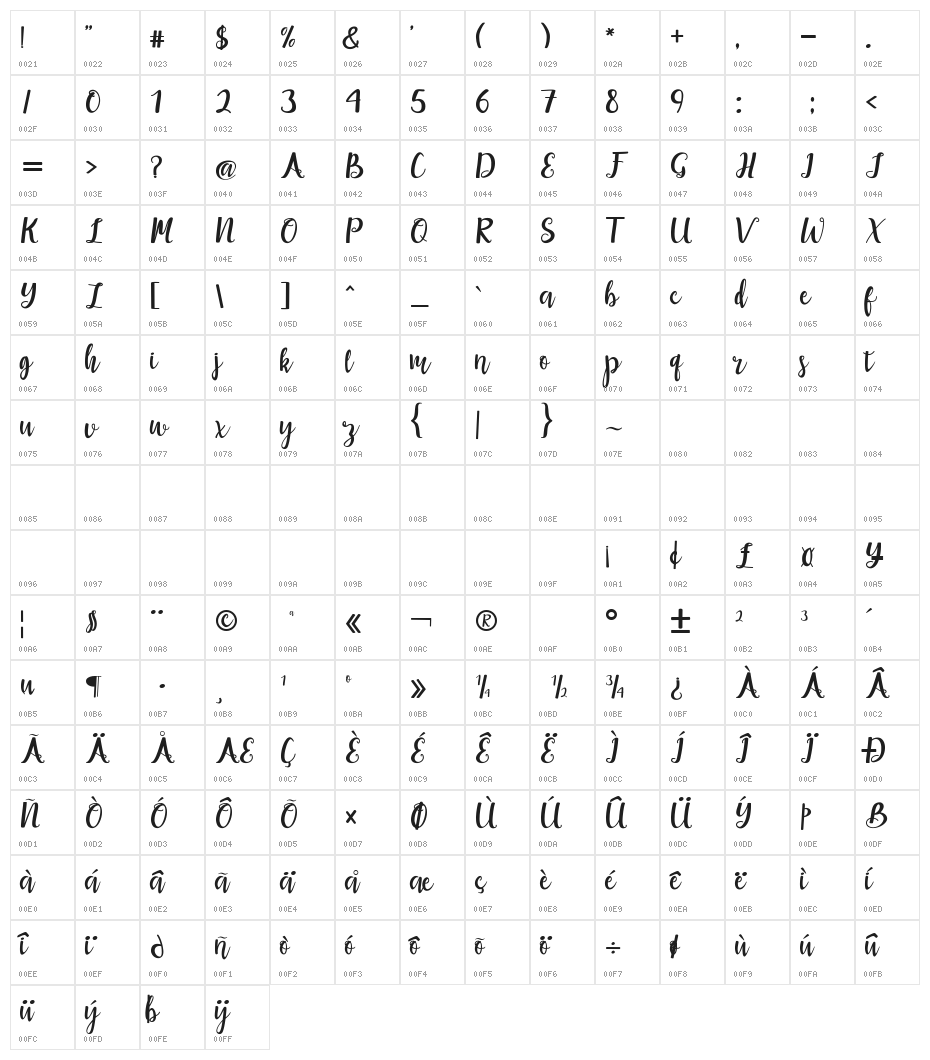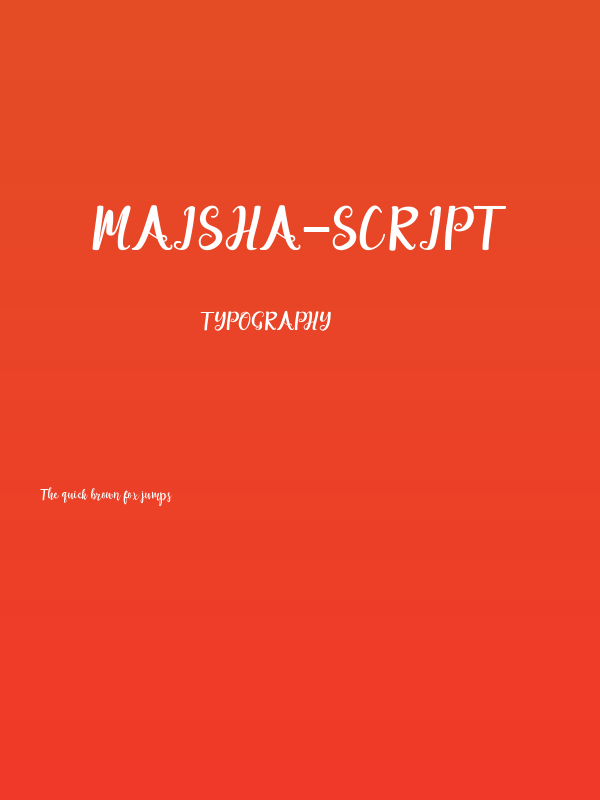
maisha-script Font
maisha-script Description
This font exudes a playful and elegant script style, characterized by its fluid and cursive letterforms. The uppercase letters are bold and slightly slanted, with decorative swashes that add a touch of sophistication. The lowercase letters maintain a consistent flow, with smooth connections between each character, enhancing readability while preserving an artistic flair. The numerals are clear and distinct, matching the overall script style with slight embellishments. Special characters are designed to complement the alphabet, featuring similar curves and loops. This font is ideal for projects that require a personal and stylish touch, such as invitations, greeting cards, and branding materials.
Use CaseHeadlines, Logos, Invitations
Proposed ProjectsIdeal for invitations, greeting cards, branding materials, and any project requiring a stylish, personal touch.